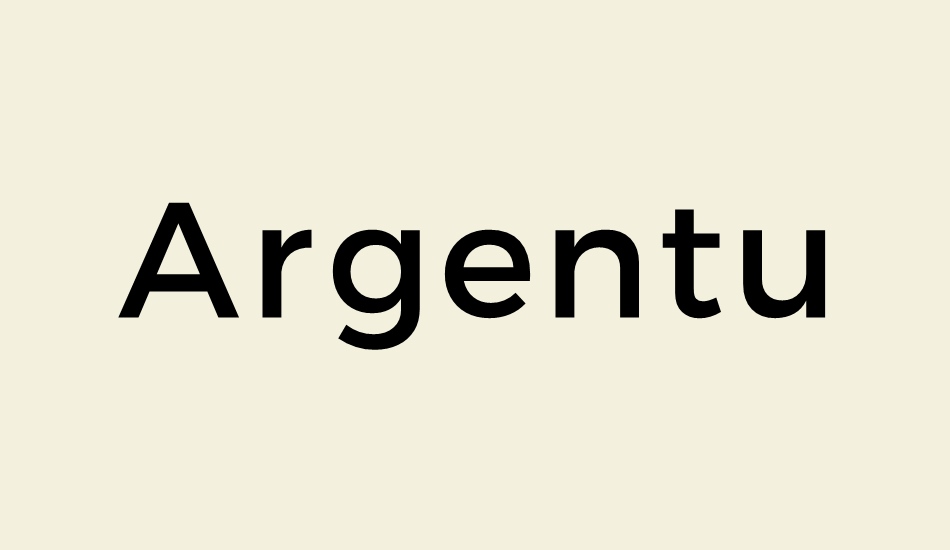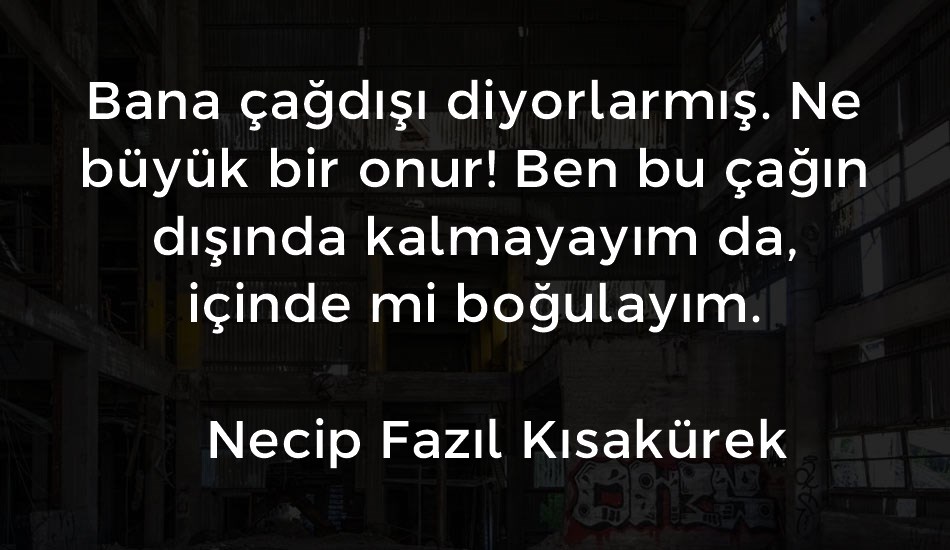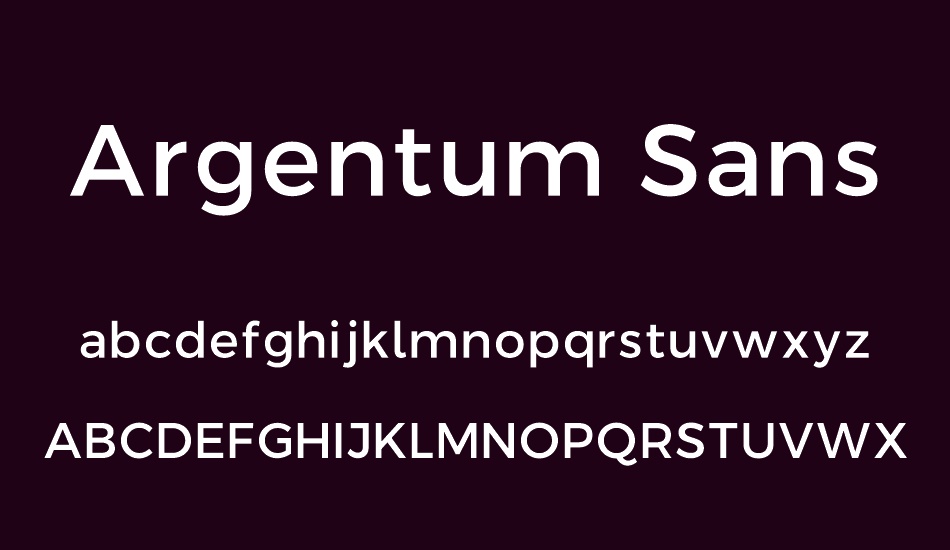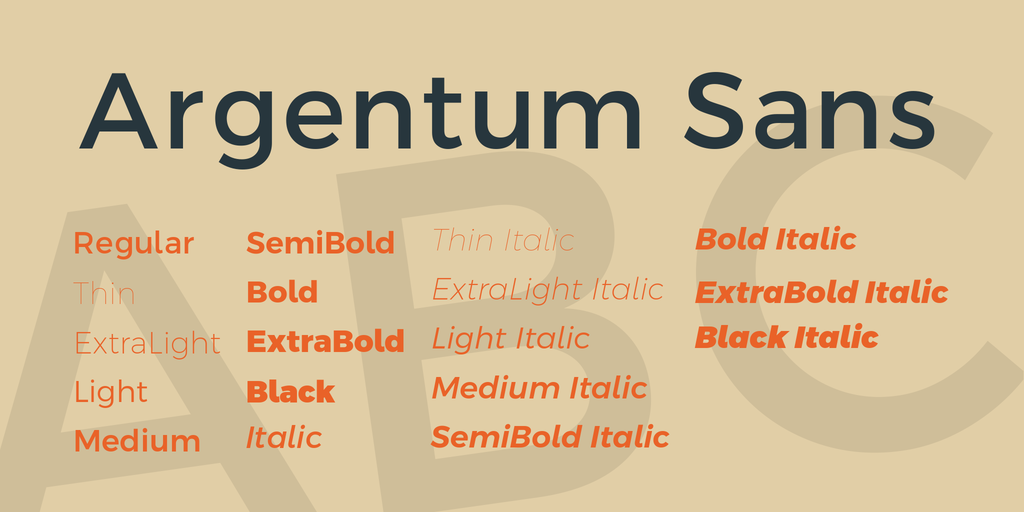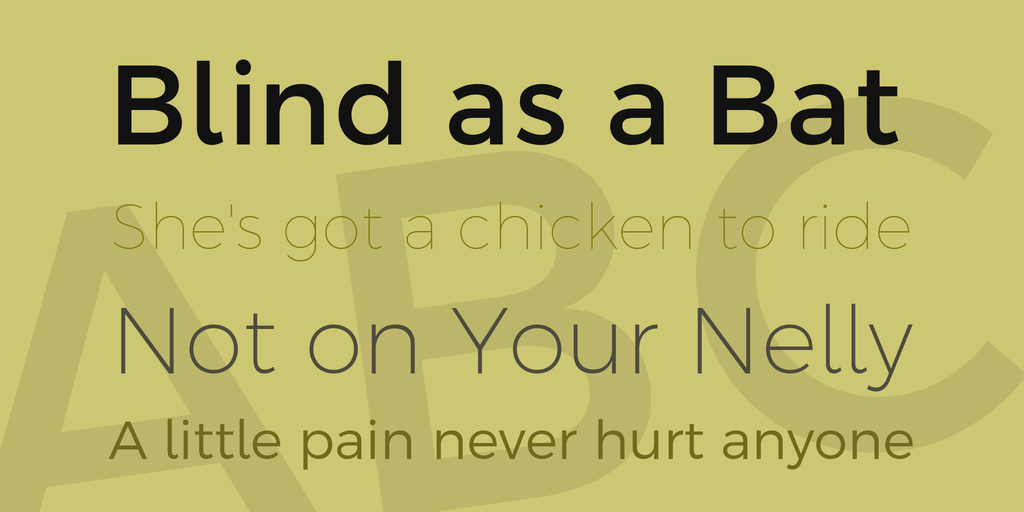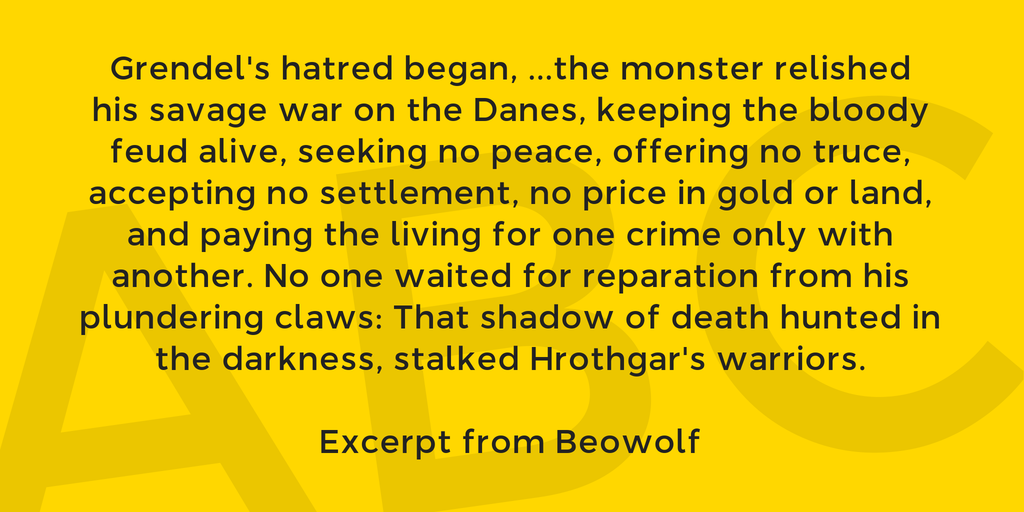
Argentum font
Argentum
Argentum Sans is forked from the font Montserrat, version 5.001. The changes are adding a tail on lowercase 'l', a more traditional 'G', and duplexed tabular numerals.
Argentum Sans is a 'revival of a revival', as the Montserrat font suffered two major changes in 2017; as a response, this project was born in January 2018.
Argentum Sans font